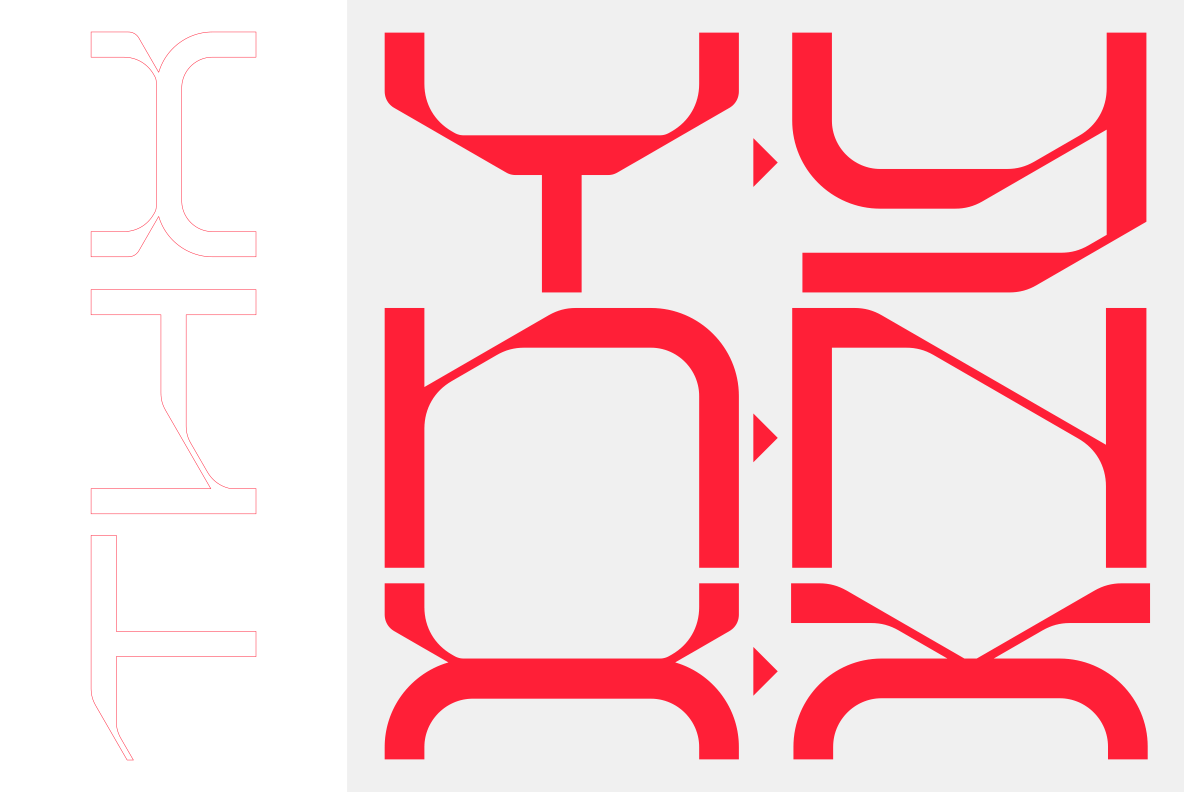
BAUNK is a new free sans serif font created by Reza Rasenda.
Baunk is a futuristic modern font that features upper & lowercase characters, multilingual, numbers & punctuation. It’s well suited for use in the tech & gaming space for logos, titles, packaging, web design, apps & much more.
BAUNK